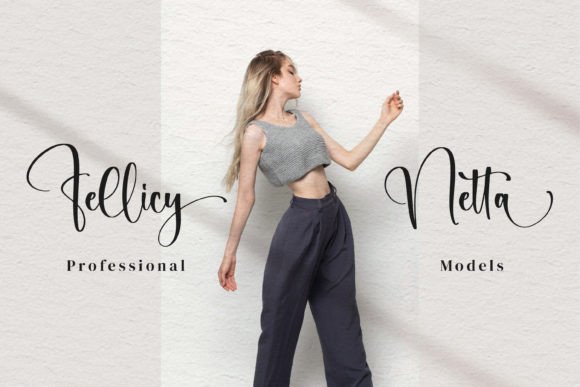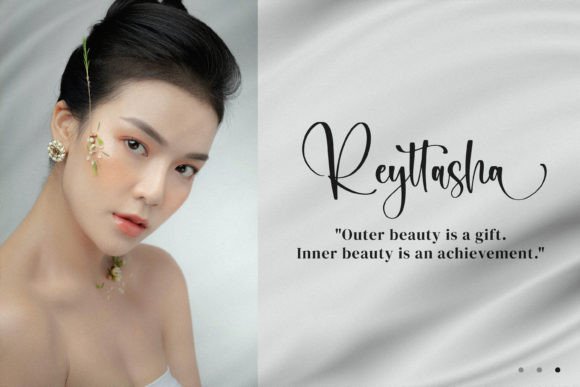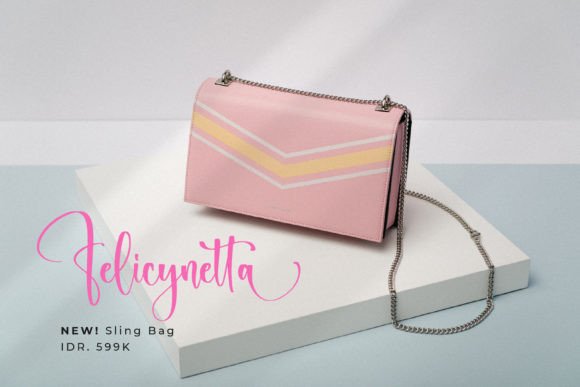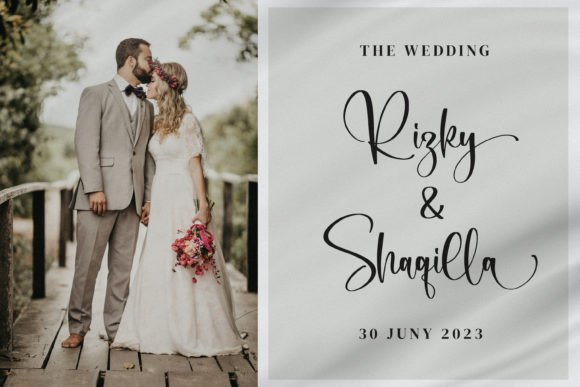
Introducing Cellarabel Font: The Sweet and Delicate Handwritten Font for Romantic Designs
Are you a designer or crafter looking for a font that can add a touch of romance and personalization to your designs? Look no further than Cellarabel Font! This sweet and delicate handwritten font is perfect for creating beautiful wedding invitations, cards, and other designs that require a dainty and joyful touch.
What is Cellarabel Font?
Cellarabel Font is a modern handwritten font that is designed to bring a sense of elegance and sophistication to your designs. Its delicate and cursive strokes make it perfect for creating romantic and feminine designs that will capture the attention of your audience. Whether you’re designing wedding invitations, greeting cards, or social media graphics, Cellarabel Font is the perfect choice.
Key Features of Cellarabel Font
- Sweet and delicate: Cellarabel Font features delicate and cursive strokes that give it a sweet and charming appearance.
- Handwritten: This font is designed to look like it was written by hand, giving it a personal and unique touch.
- Romantic and feminine: Cellarabel Font is perfect for creating romantic and feminine designs that will appeal to your audience.
- Versatile: This font can be used for a variety of designs, including wedding invitations, cards, social media graphics, and more.
Why Use Cellarabel Font?
There are many reasons why you should use Cellarabel Font for your designs. Here are a few:
- Add a personal touch: Cellarabel Font is perfect for adding a personal touch to your designs. Its handwritten appearance makes it look like you took the time to write each letter individually.
- Create romantic designs: If you’re designing wedding invitations, anniversary cards, or other romantic designs, Cellarabel Font is the perfect choice.
- Stand out from the crowd: With its unique and delicate appearance, Cellarabel Font is sure to make your designs stand out from the crowd.
How to Use Cellarabel Font
Using Cellarabel Font is easy! Here are a few tips to get you started:
- Pair it with other fonts: Cellarabel Font pairs well with other fonts, such as serif and sans-serif fonts. Try pairing it with a bold font to create contrast.
- Use it for headings and titles: Cellarabel Font is perfect for headings and titles. Use it to add a touch of elegance and sophistication to your designs.
- Experiment with colors: Cellarabel Font looks great in a variety of colors. Try experimenting with different colors to find the one that works best for your design.
Design Ideas Using Cellarabel Font
- Wedding invitations: Cellarabel Font is perfect for creating beautiful wedding invitations. Use it to add a touch of romance and elegance to your design.
- Greeting cards: This font is also great for creating greeting cards for special occasions, such as anniversaries and birthdays.
- Social media graphics: Use Cellarabel Font to create eye-catching social media graphics that will capture the attention of your audience.
In conclusion, Cellarabel Font is a beautiful and delicate handwritten font that is perfect for creating romantic and feminine designs. Its sweet and charming appearance makes it ideal for wedding invitations, cards, and other designs that require a personal touch. With its versatility and ease of use, Cellarabel Font is a great addition to any designer’s toolkit.